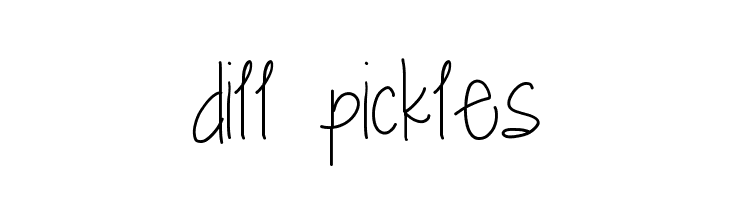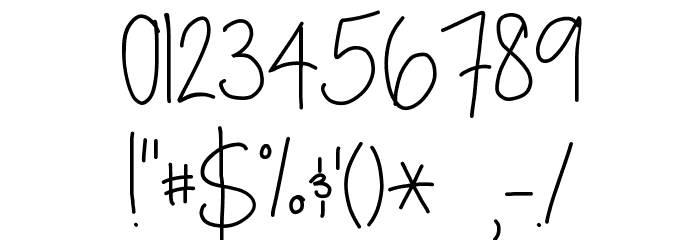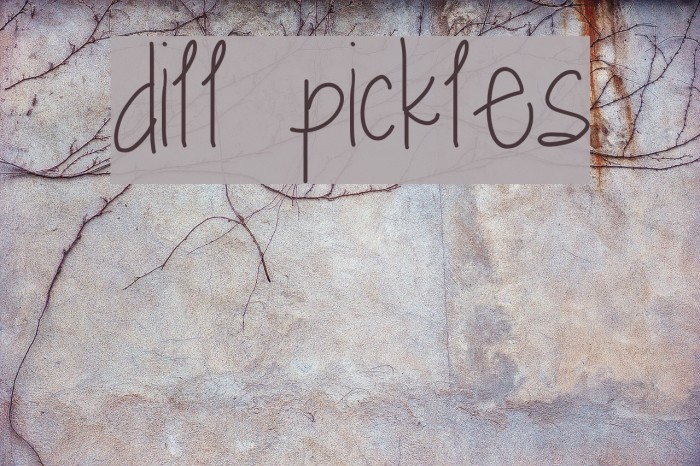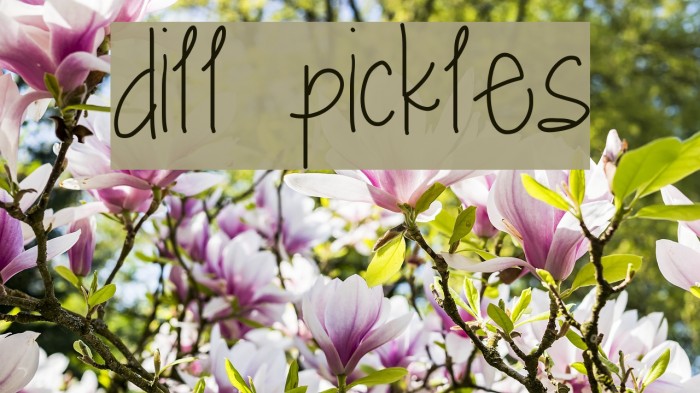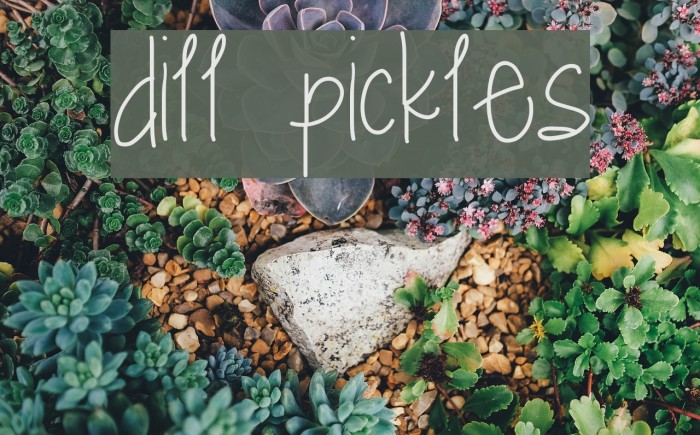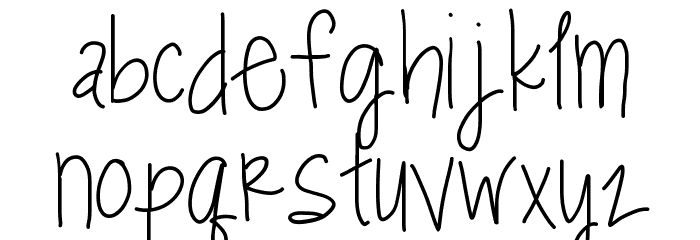
dill pickles Font
This font features a playful and casual handwritten style, characterized by its tall, narrow letters and slightly irregular strokes. The uppercase and lowercase letters maintain a consistent flow, giving it a cohesive yet informal appearance. The numerals and special characters complement the alphabet with their quirky, hand-drawn look. The overall design is approachable and friendly, making it suitable for projects that require a personal touch. Its unique style is both charming and versatile, fitting well in creative and informal settings.
A playful, handwritten font with tall, narrow letters and a casual style.
• Proposed Projects: Ideal for greeting cards, children's books, personal blogs, and informal branding.
• Category: Handwritten
• Width: Condensed
• Overall Style: Casual
• Use Case: Headlines, Informal text, Creative projects